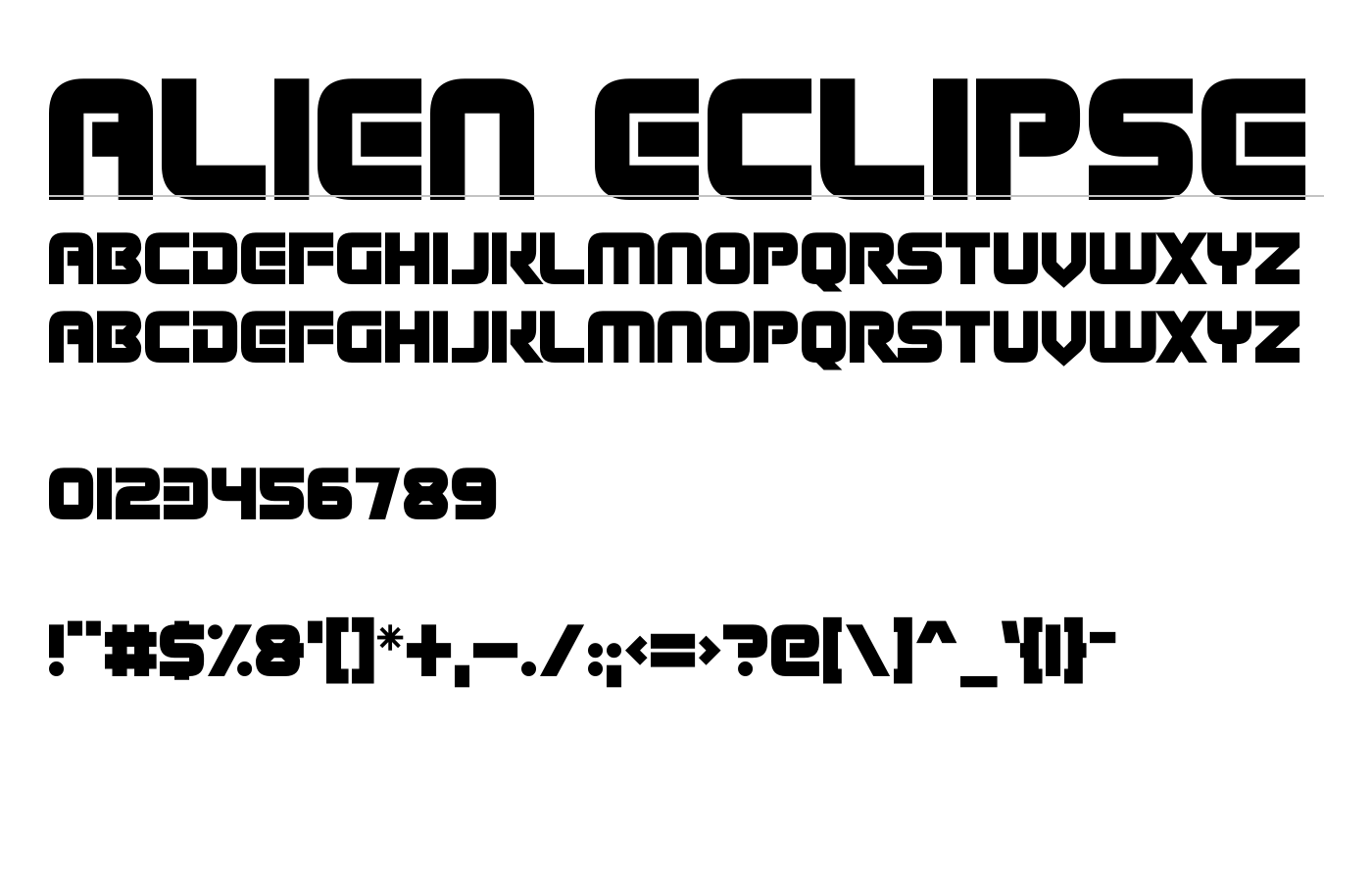
Alien Eclipse is a bold, geometric sans serif font with a futuristic and sci-fi vibe, featuring wide, blocky letterforms and rounded corners that give it a strong yet approachable personality. Its high x-height and consistent stroke weight make it ideal for striking headlines, branding, and digital designs that require a modern, edgy look. This font works especially well for technology, gaming, and entertainment projects aiming to convey innovation and excitement.
Alien Eclipse Font
About Alien Eclipse Font